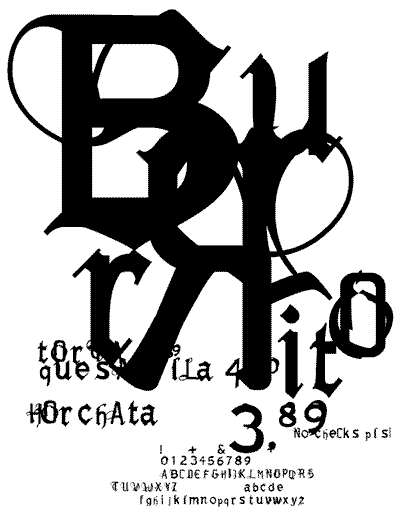
Burrito, Dennis Pasco.
Mission Street, San Francisco. The wide variety of lettering signs
are mostly hand-painted. Made by the painterŐs own skills without
regard for typography. It creates a vernacular that I only associate
with the Mission. Small family-owned stores sell everything from shoes
and clothes to pastries and groceries. Mission Street has a market
feeling to it due to Mexican influence. I tried to capture the variety
of its signs of the stores, markets, restaurants, and bars, whose
rough edges are decorated by Western and Mexican motifs.